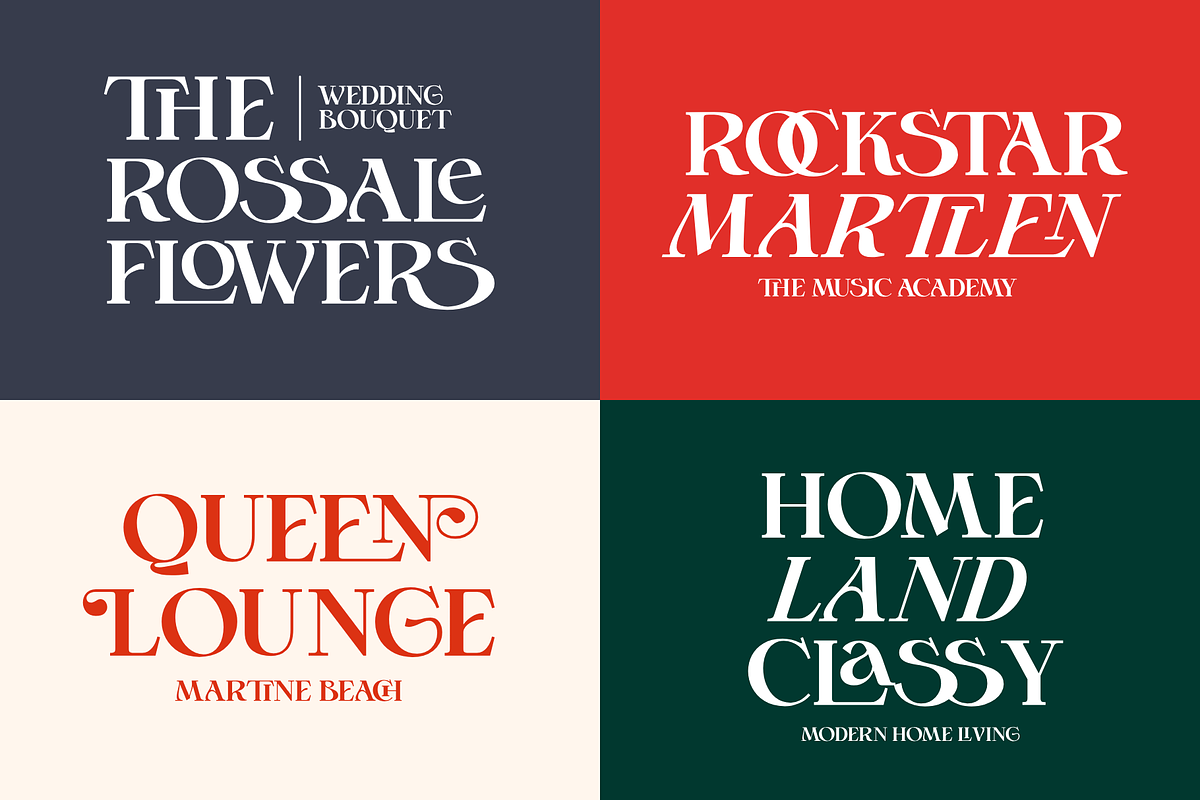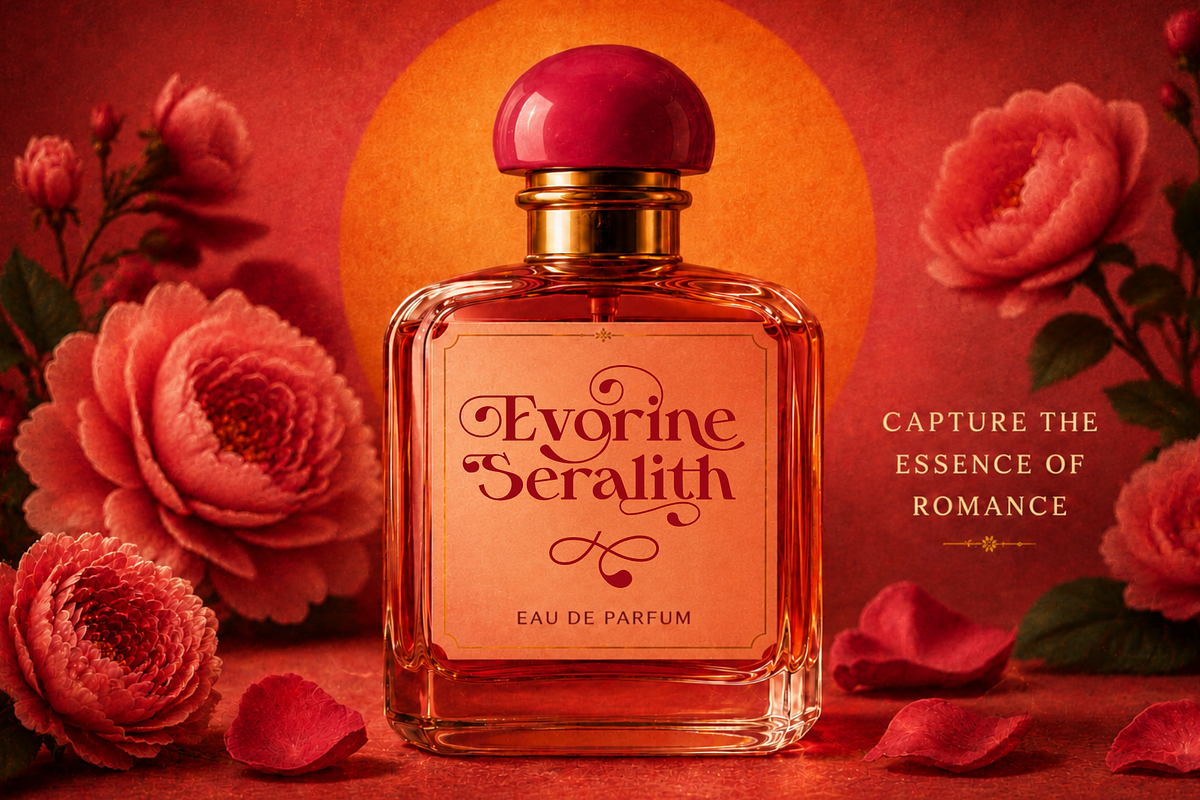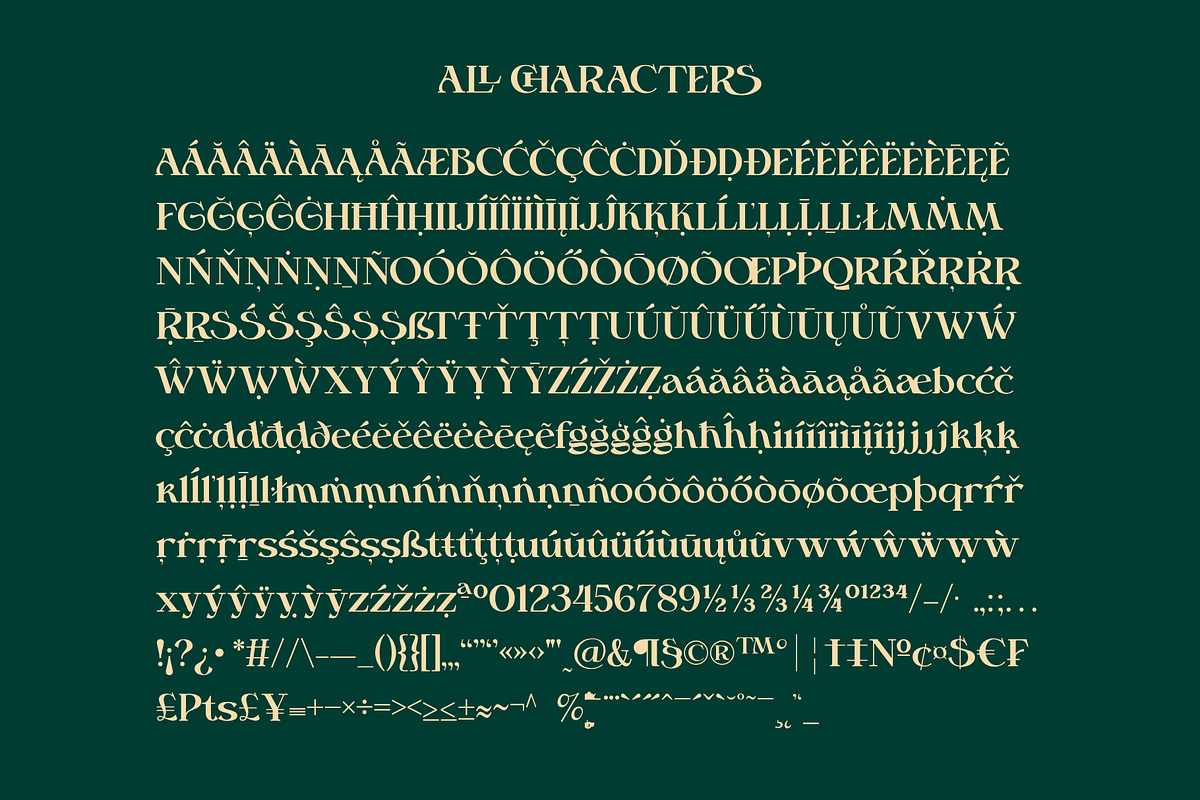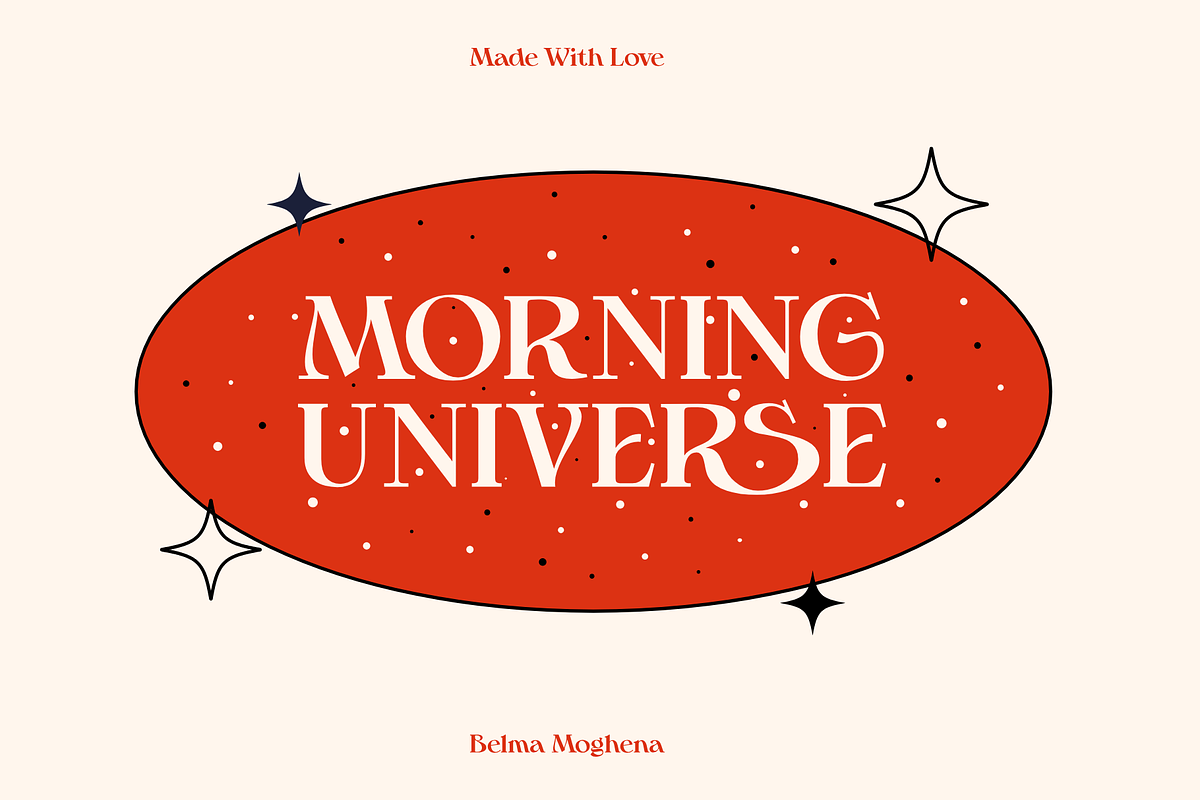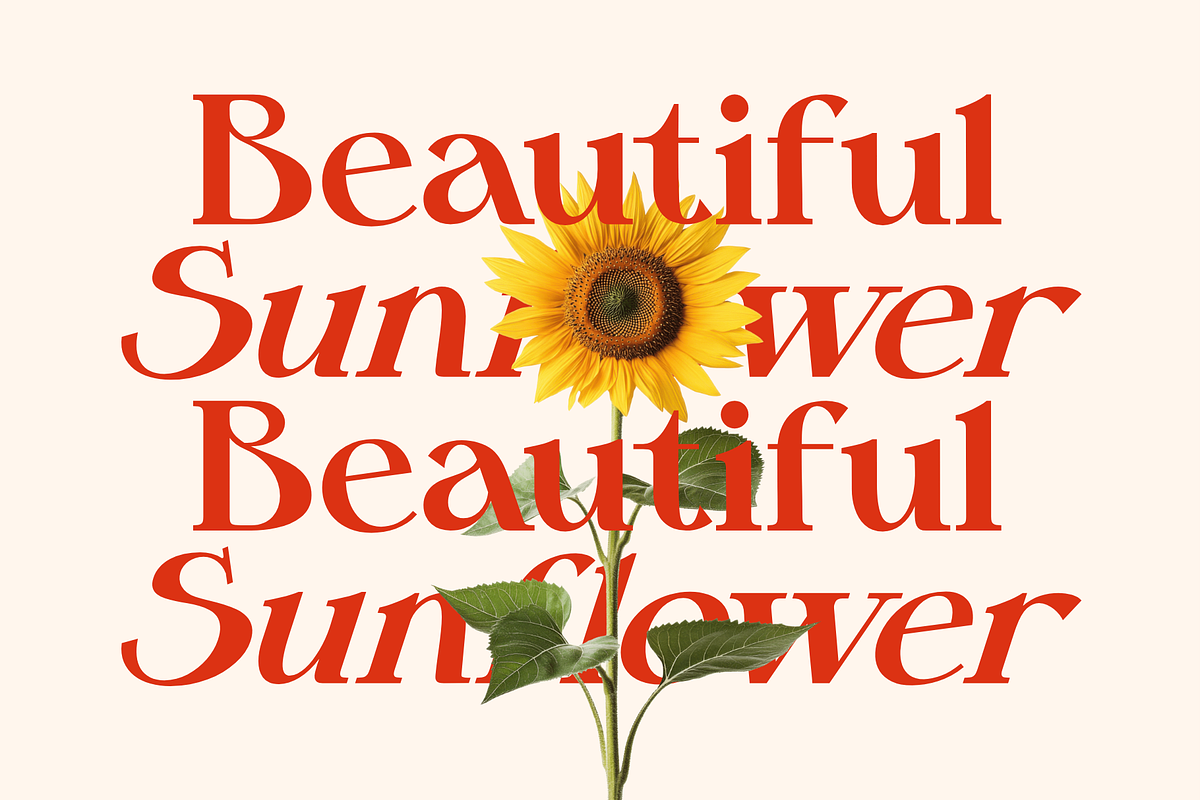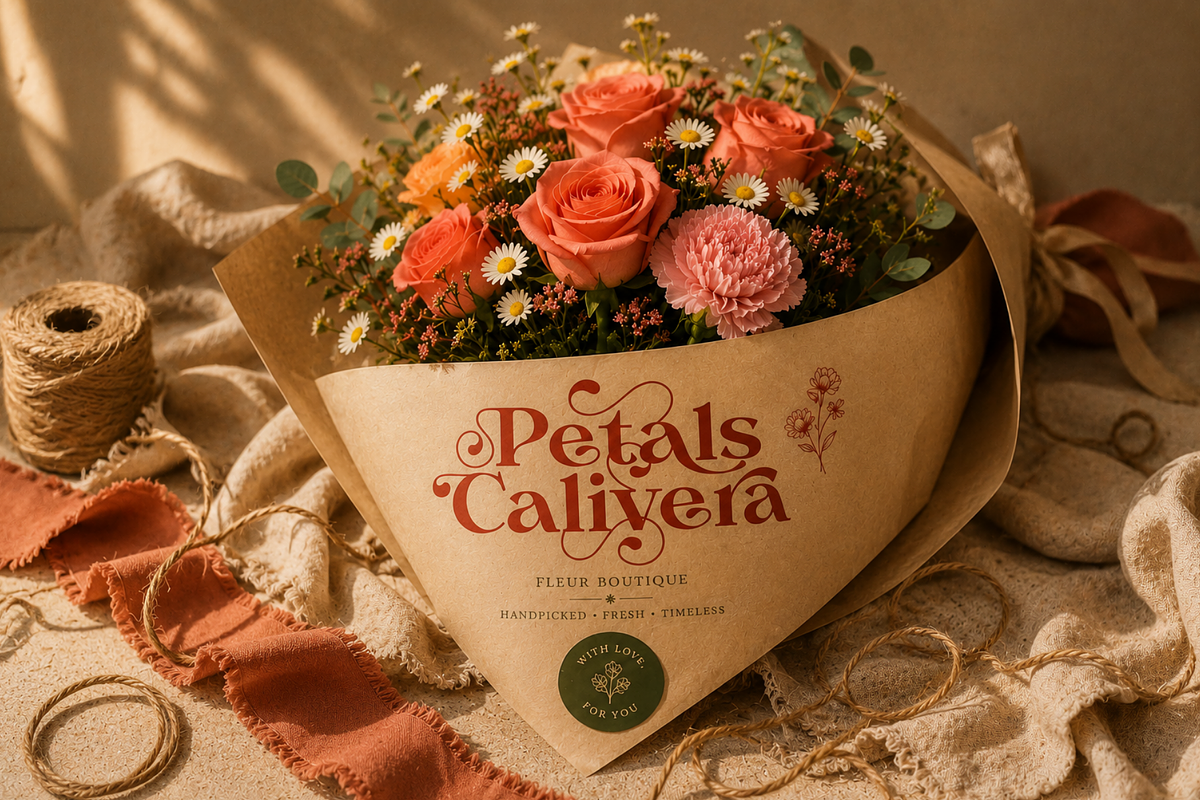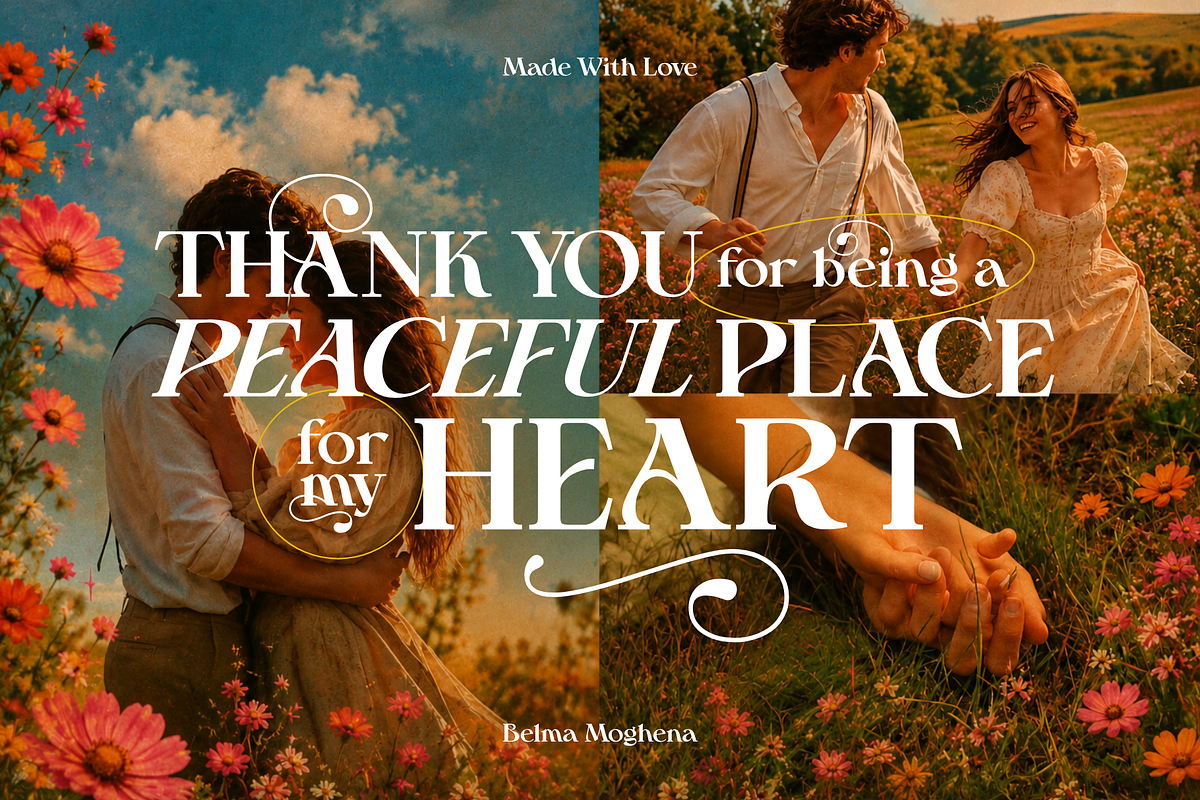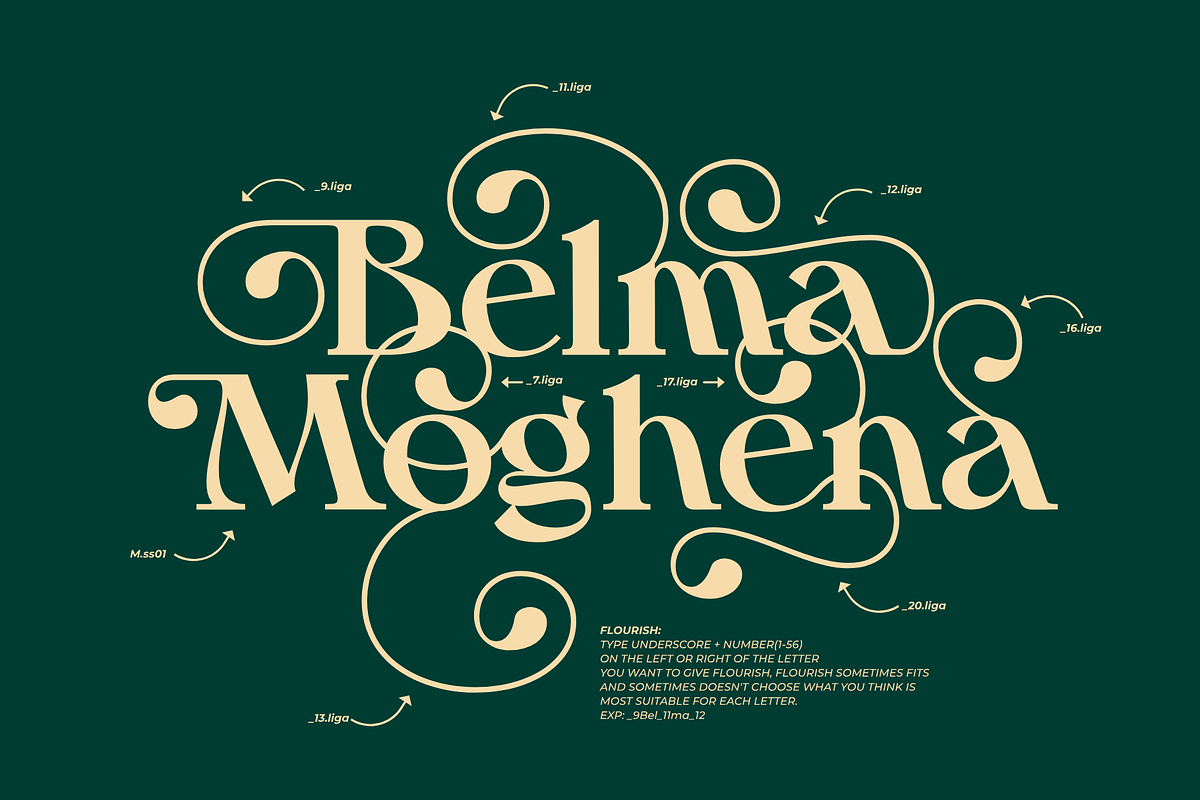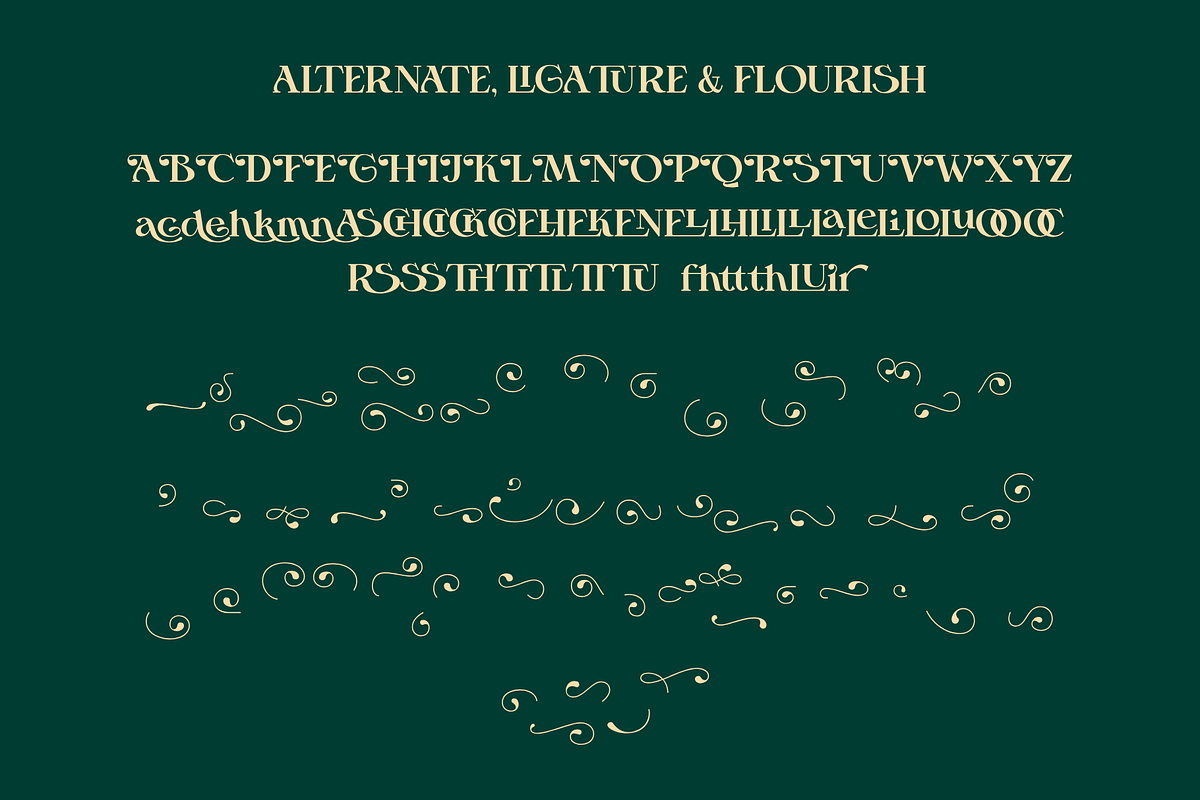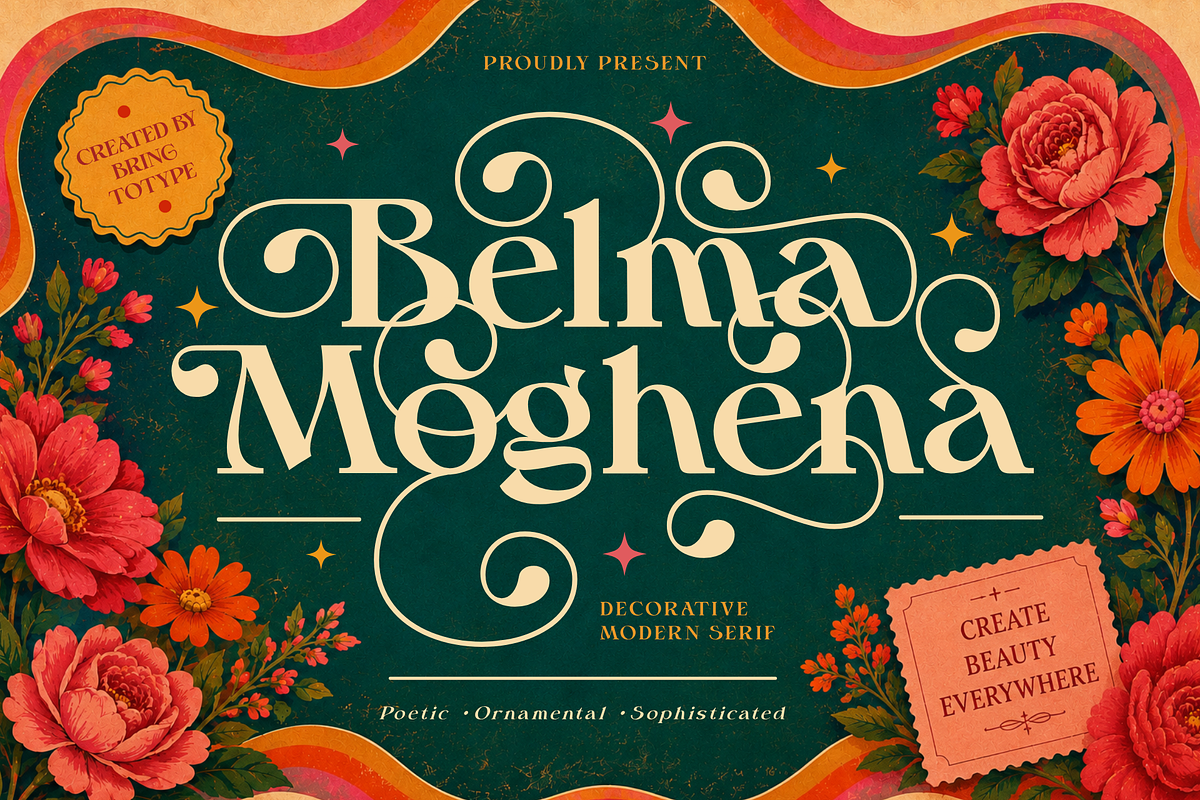
Belma Moghena - Decorative Serif
BELMA MOGHENA
Romantic Decorative Serif Typeface Elegant, Flourished, and Poetically Timeless
BELMA MOGHENA is a romantic decorative serif typeface crafted with graceful curves, expressive flourishes, and sophisticated vintage-inspired details. Blending timeless editorial elegance with artistic femininity, this typeface brings a dreamy and luxurious atmosphere to every design composition.
Graceful Flourishes with Romantic Character
Designed with delicate serif structures and flowing ornamental swashes, BELMA MOGHENA captures the beauty of classic romance while maintaining a modern editorial aesthetic. Its refined letterforms create a harmonious balance between softness and dramatic expression, making every word feel artistic and memorable.
Perfect for Elegant Branding & Creative Projects
BELMA MOGHENA shines beautifully across luxury branding, wedding stationery, perfume packaging, fashion editorials, beauty campaigns, logo design, social media graphics, and boutique product packaging. Whether used for large display headlines or sophisticated brand identities, the font delivers a captivating visual presence filled with charm and elegance.
Inspired by Poetry, Fashion, and Timeless Beauty
Created for designers who appreciate expressive typography and refined aesthetics, BELMA MOGHENA transforms ordinary layouts into luxurious visual storytelling. Its romantic personality, decorative details, and editorial sophistication make it a perfect choice for projects that seek beauty, emotion, and timeless style.
and Slant Version